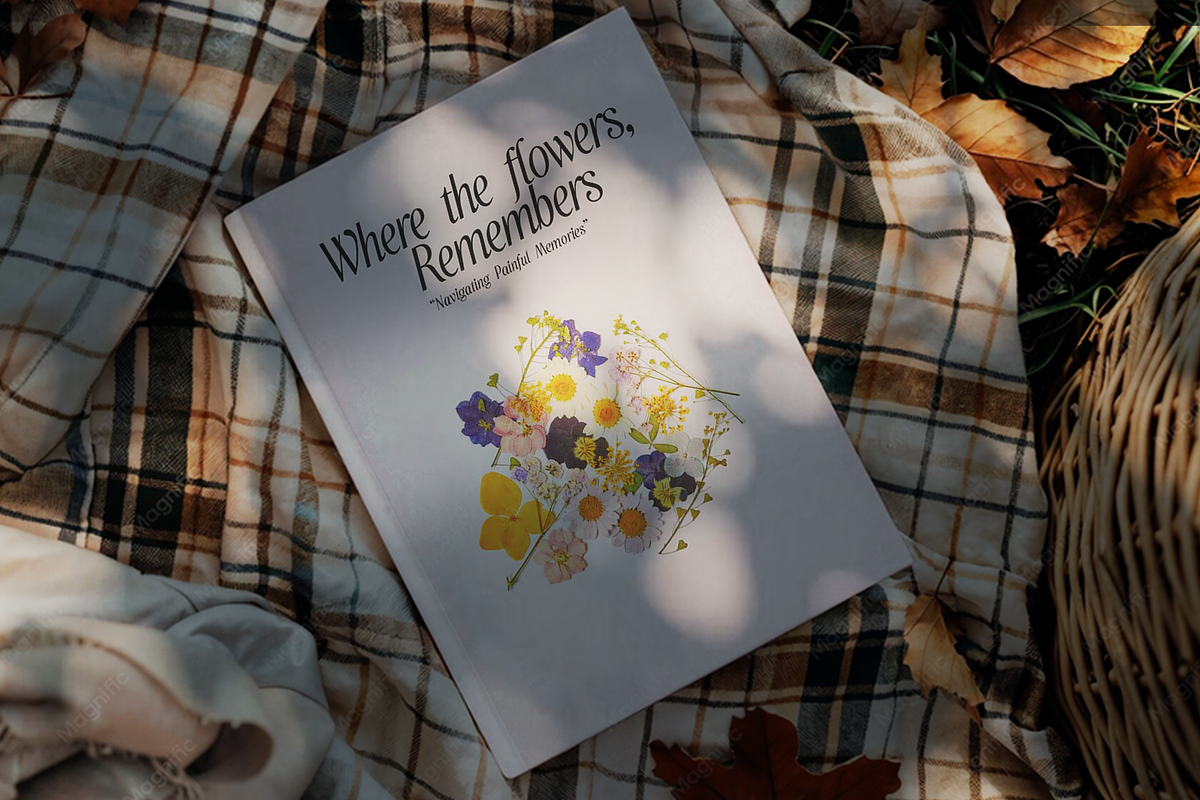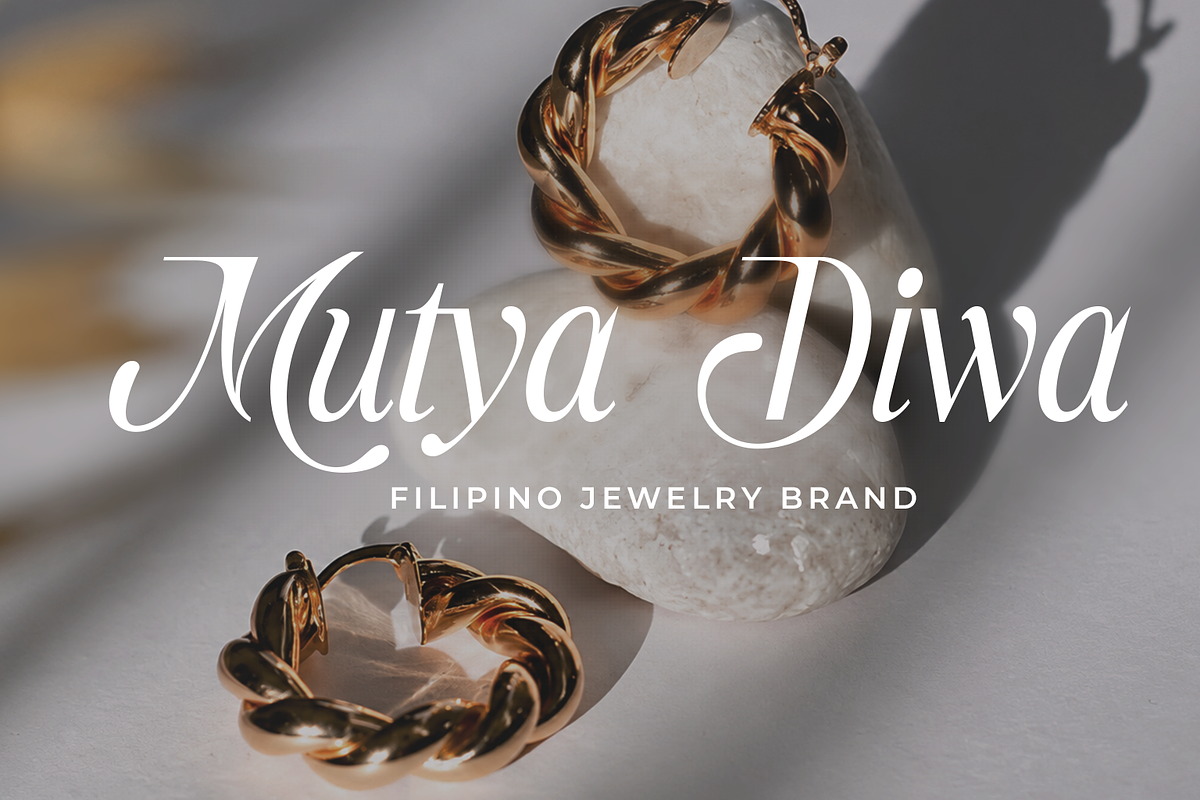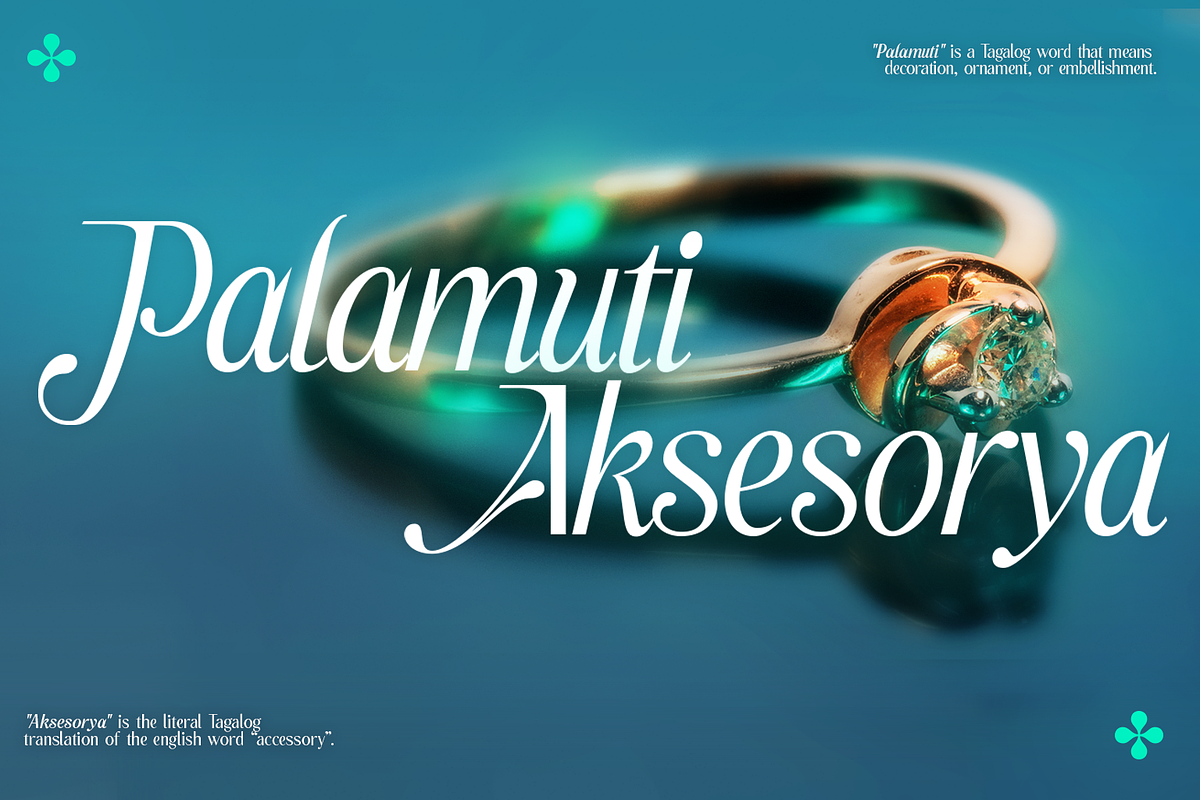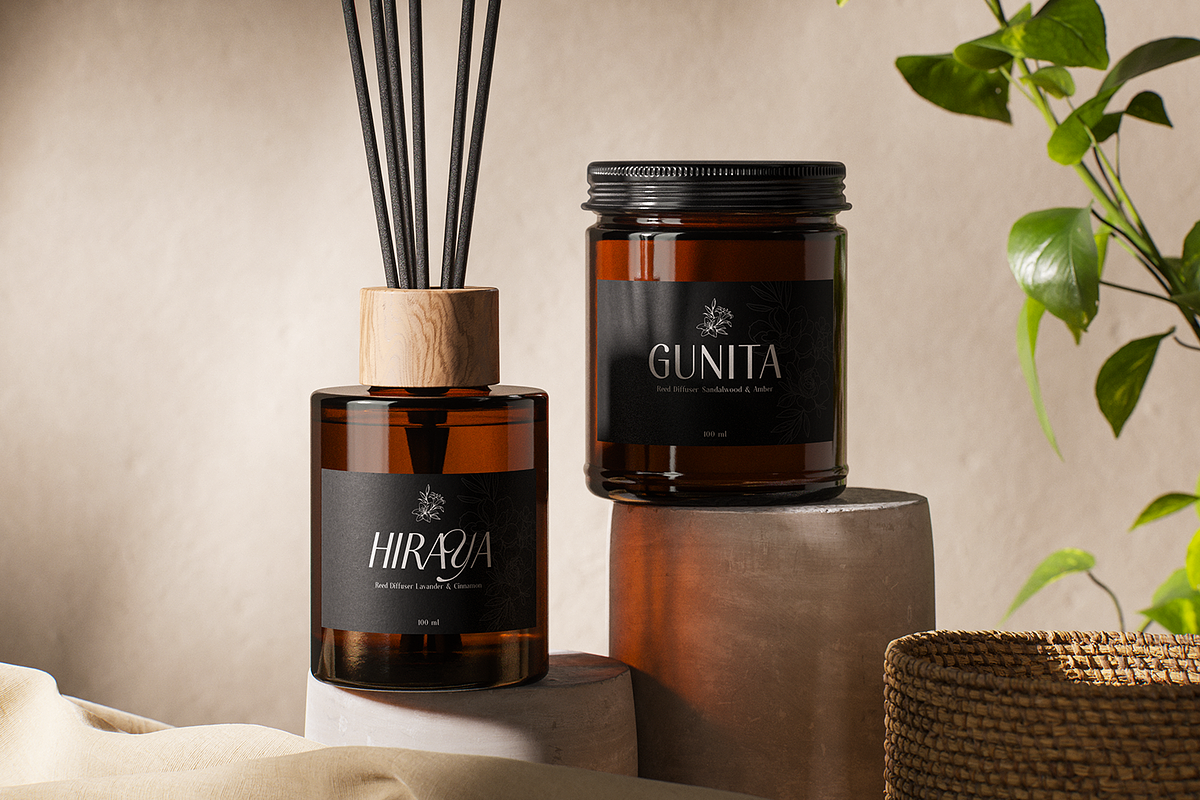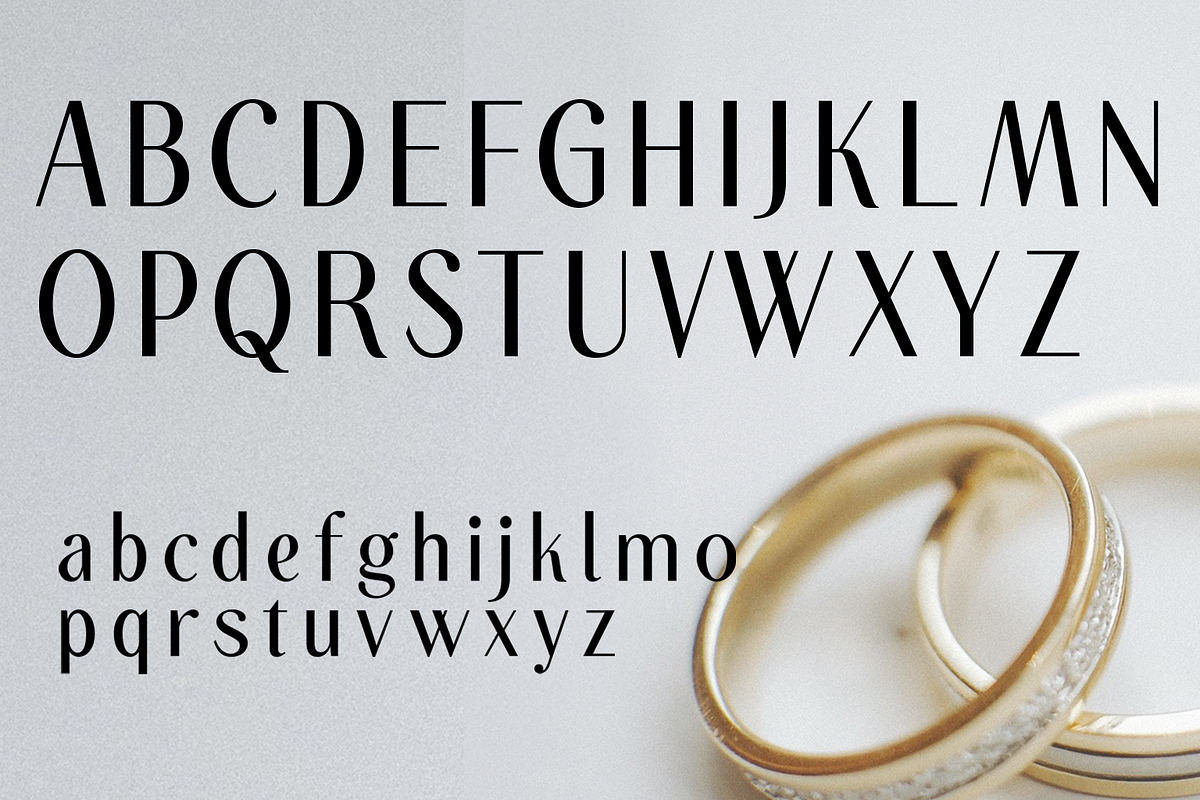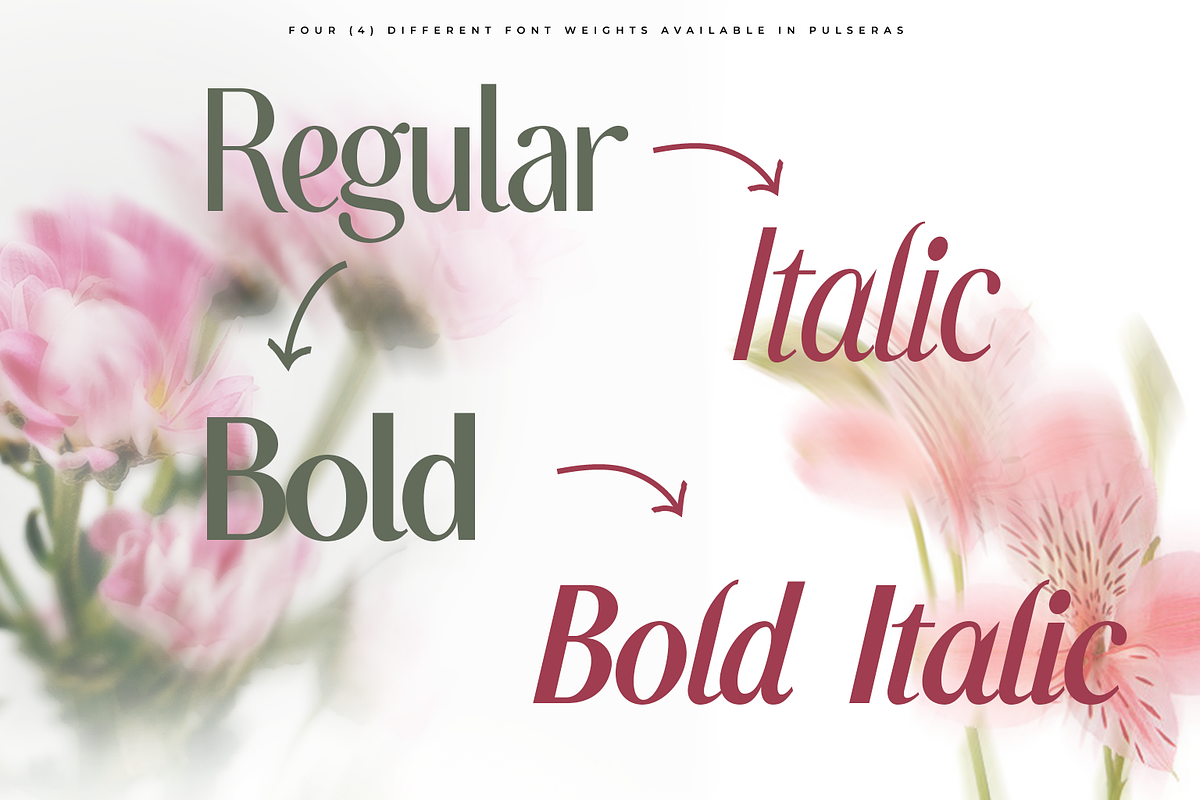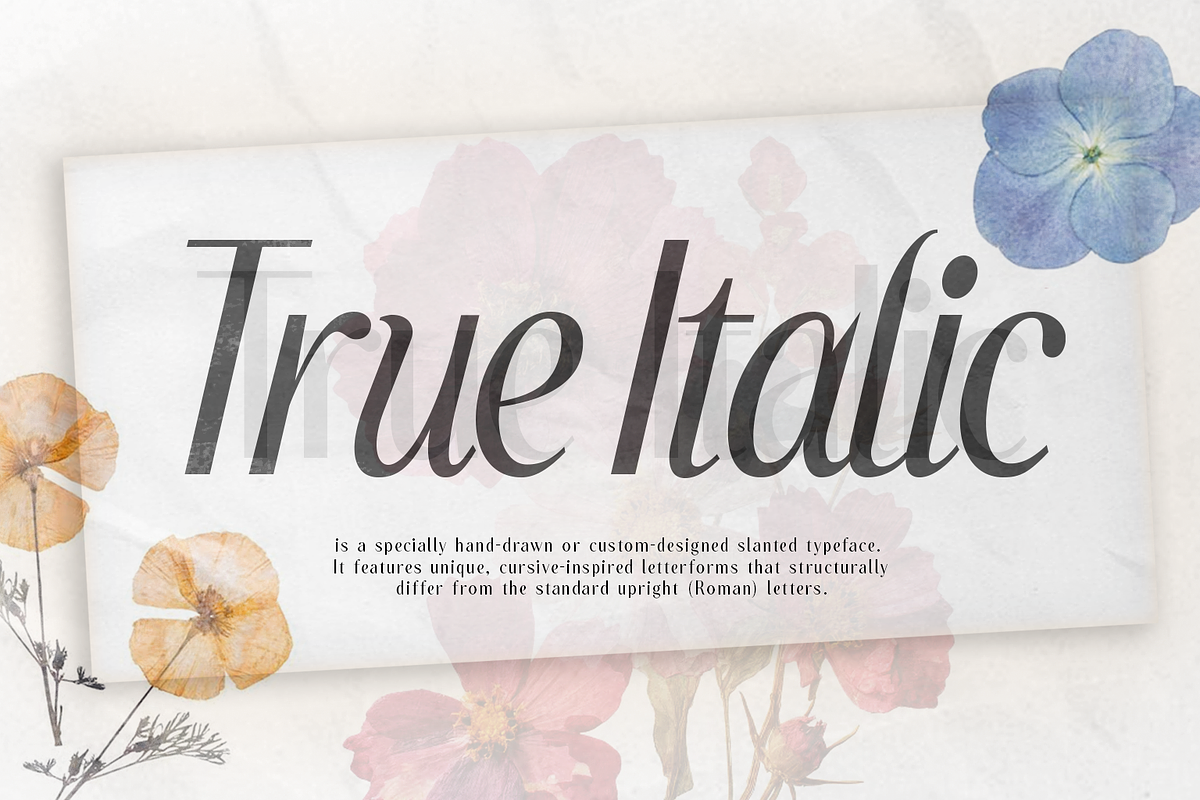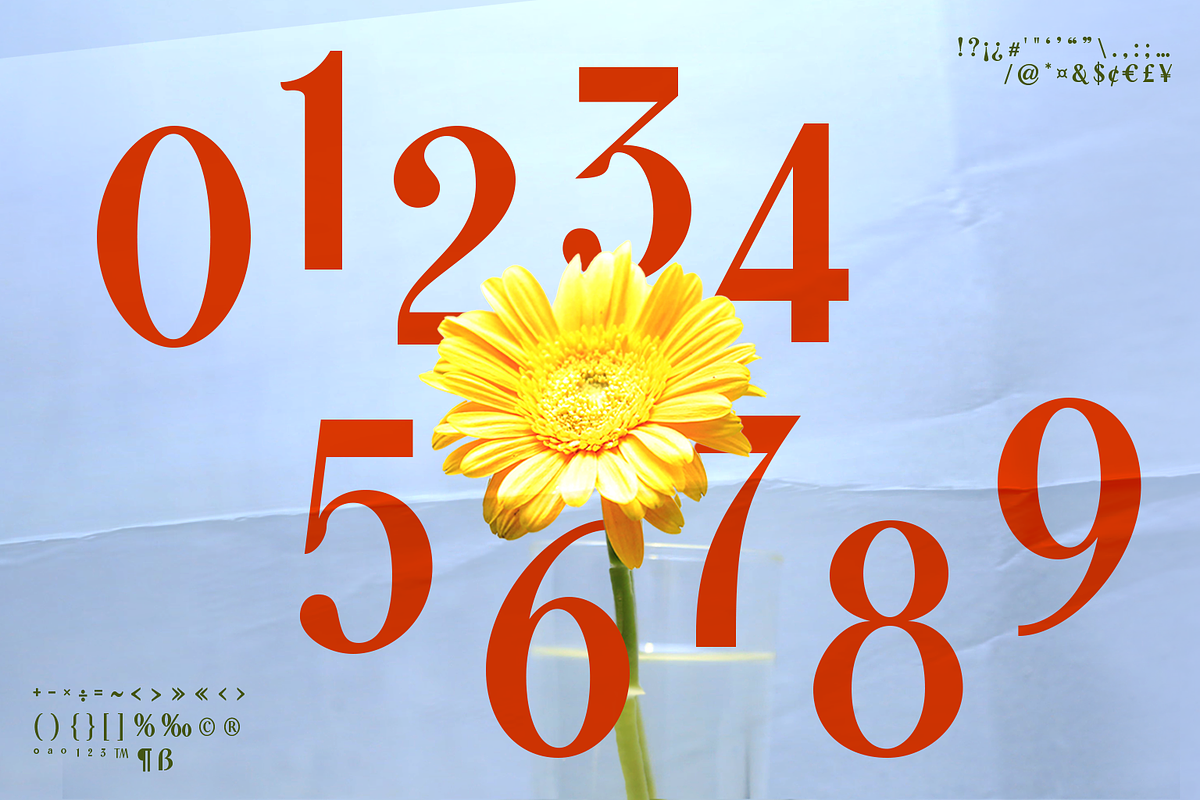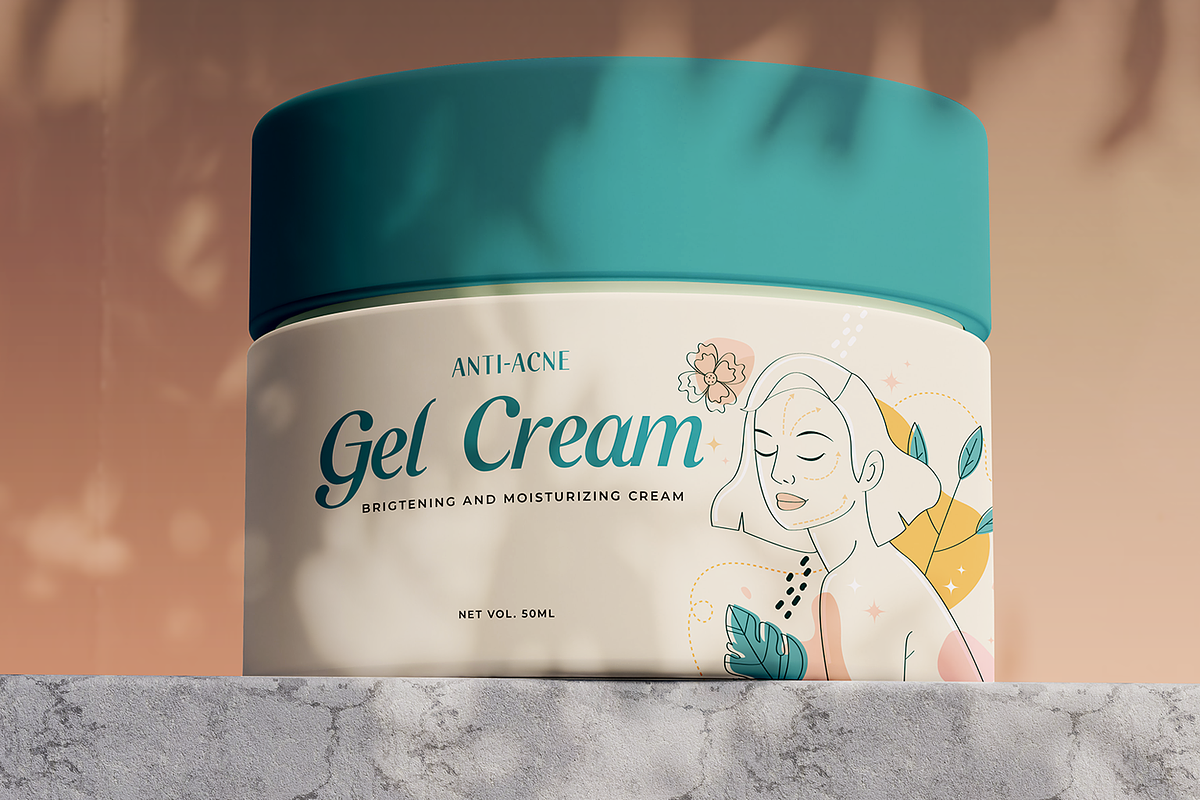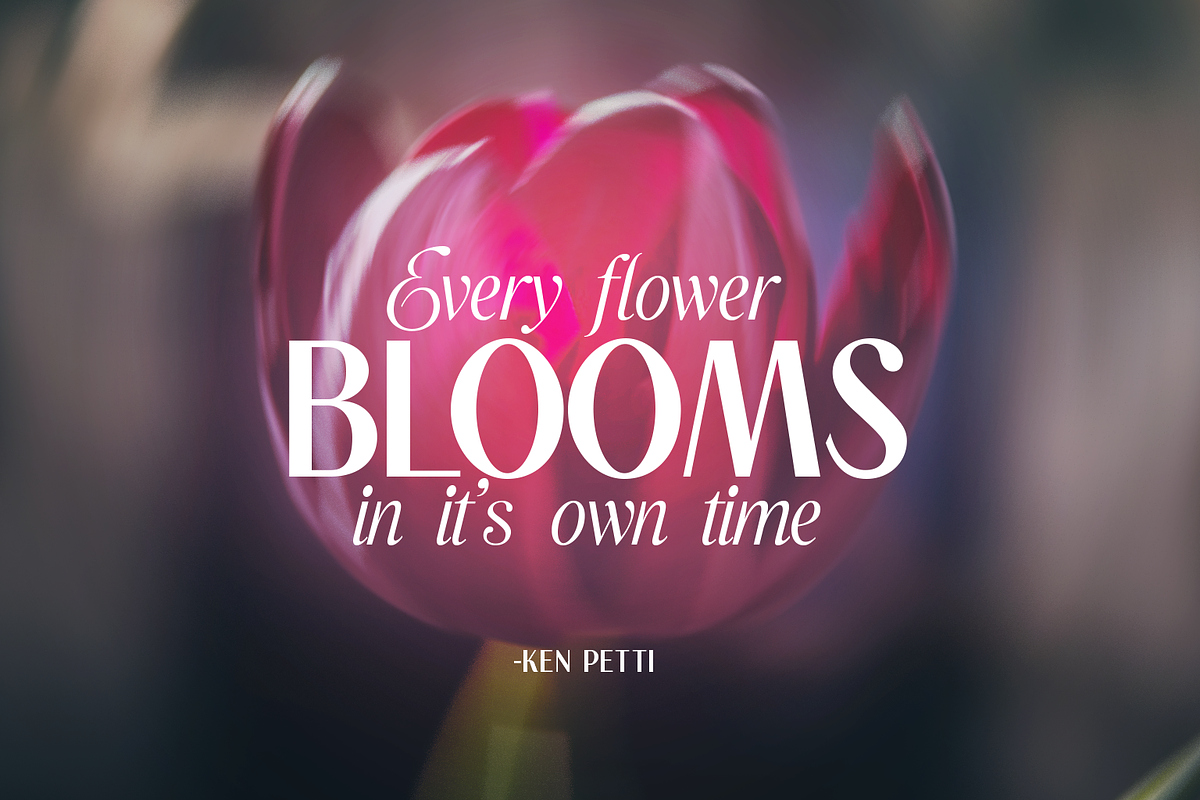
Pulseras- Romantic Display Font
Pulseras is a romantic vintage display font inspired by timeless elegance, Filipino sentiment, and the beauty of love and remembrance.
Featuring elegant high-contrast serif letters, expressive italics, and distinctive stylistic alternates, Pulseras brings a sophisticated, nostalgic character to your designs while giving you the flexibility to create unique typographic compositions.
Perfect for luxury branding, fashion logos, perfume and fragrance packaging, jewelry branding, wedding invitations, editorial design, book covers, posters, packaging, social media graphics, and boutique branding.
• Multiple weights • Italic styles • Stylistic alternates • Uppercase & lowercase • Numbers & punctuation • Multilingual support
Designed and crafted by Lurinzu Studios in the Philippines, Pulseras is made for designs that feel romantic, refined, nostalgic, and unforgettable.
Pulseras; a romantic typography, made to linger.